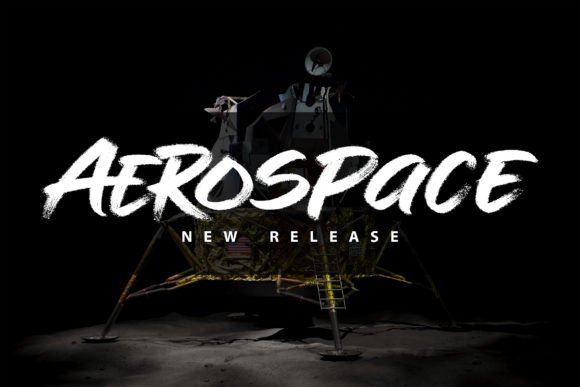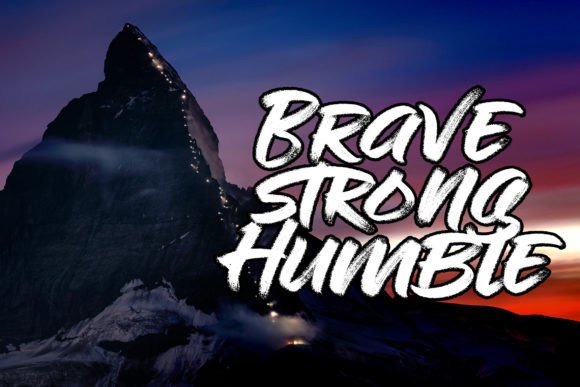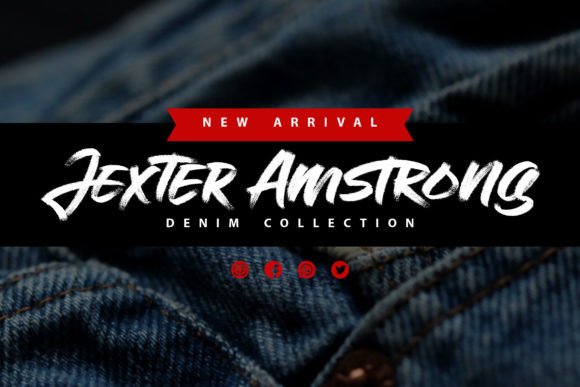
Introduction to Jexters Amstrong Font
Remember that moment when you finally found the perfect font to bring your creative project to life? The one that made your design stand out and captured the essence of your idea? For many designers, that moment is just a click away with the Jexters Amstrong Font.
This cool, modern, raw-brush handwritten font is a game-changer for any creative project. Its original look will appeal to a wide spectrum of applications, from logos to social media graphics, and everything in between. With its high-quality design, you’ll be able to add a unique touch to your work and make it truly stand out.
Key Features of Jexters Amstrong Font
- Unique, hand-drawn design suitable for creative projects requiring a personal touch
- Design resource ideal for graphic designers, artists, and writers seeking a distinctive style
- Transparent background allows for seamless integration with various design elements
- Available in a range of sizes, with optimal resolution at 300 DPI for high-quality printing
- Includes a range of characters, including uppercase and lowercase letters, numbers, and punctuation marks
- Perfect for adding a touch of whimsy and personality to any design project, from posters to business cards
Honest Review: Jexters Amstrong Font
I recently came across the Jexters Amstrong Font while searching for a unique design resource for a creative project. After giving it a try, I’m excited to share my thoughts on this font.
- High-quality typography: The Jexters Amstrong Font has a clean and modern design that’s perfect for a variety of applications.
- Transparent background: This feature allows for easy customization and blending with other design elements.
- Limited font sizes: While the font looks great in standard sizes, it can become pixelated when enlarged or reduced.
- No bold or italic versions: If you need to emphasize certain text, you’ll need to use a different font or manually add emphasis using other design elements.
Overall, I’m impressed with the Jexters Amstrong Font and would recommend it for any creative project that requires a unique and high-quality design resource.
Tips for Getting the Most Out of Jexters Amstrong Font
Experiment with different font sizes and styles to create a visually appealing design. Use the font in combination with other design elements to add depth and interest to your project.
The Jexters Amstrong Font is perfect for creative projects such as logos, business cards, and brochures. Its high-quality design makes it ideal for use in professional settings, while its free download makes it accessible to designers of all levels.